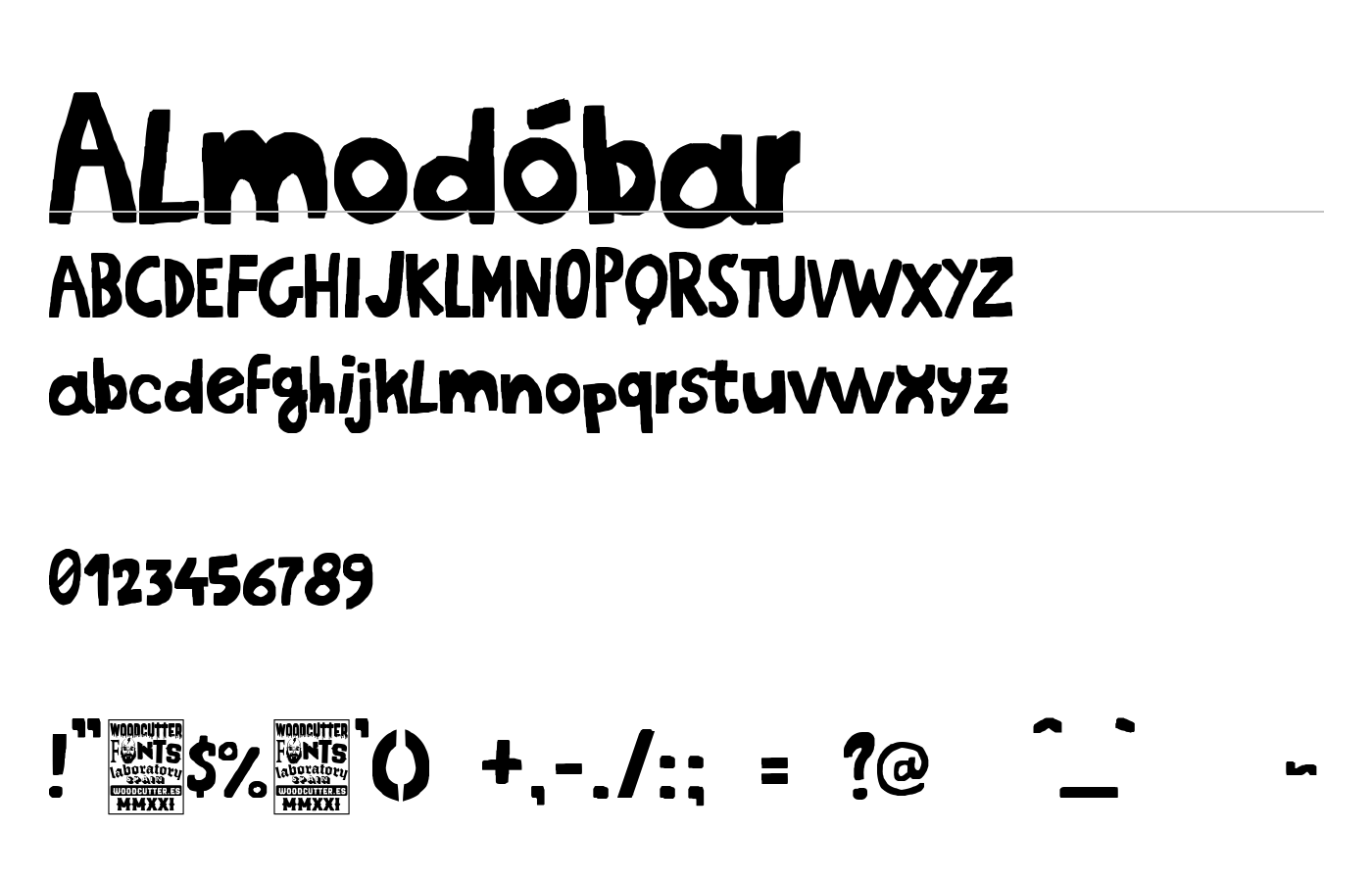
Almodóbar is a bold, playful sans serif font with a hand-drawn feel, featuring irregular, chunky letterforms that create a lively and informal appearance. Its wide, slightly condensed characters and quirky shapes make it perfect for creative projects, children’s books, or casual branding seeking a fun, approachable vibe. This font works well in headlines and display uses where personality and uniqueness are desired.
Almodóbar Font